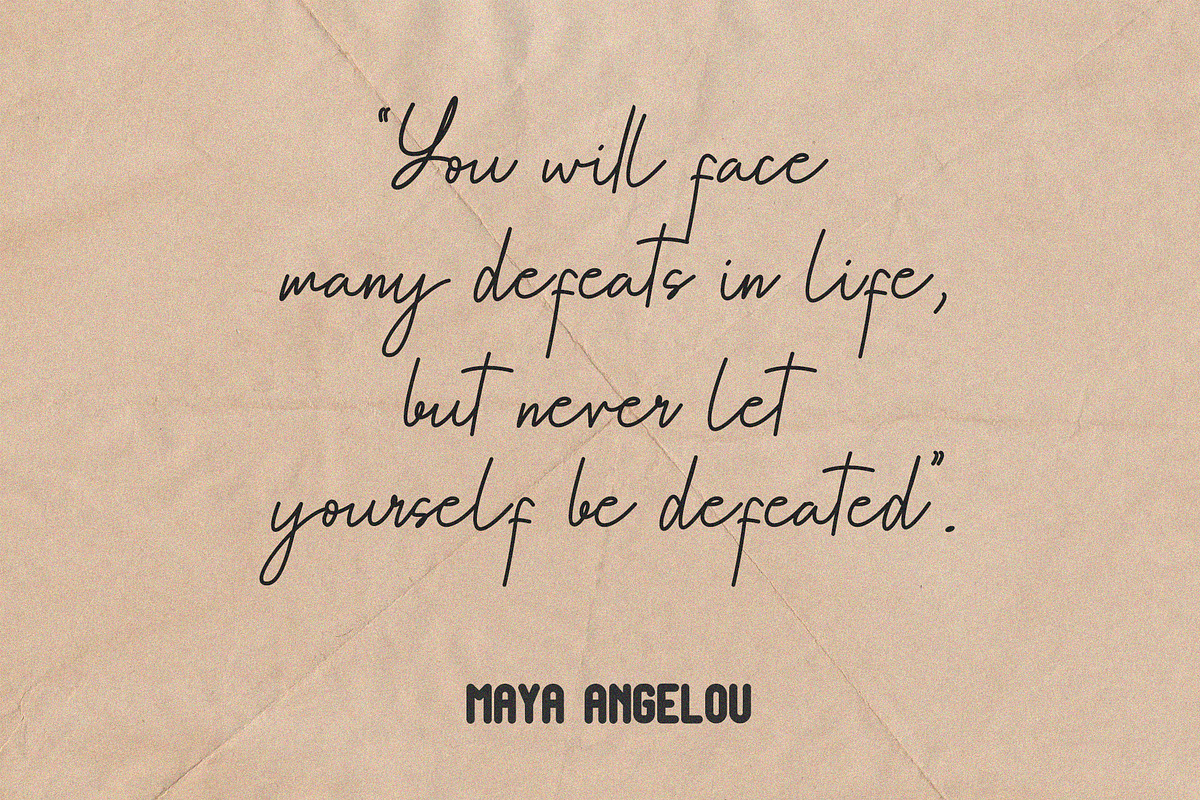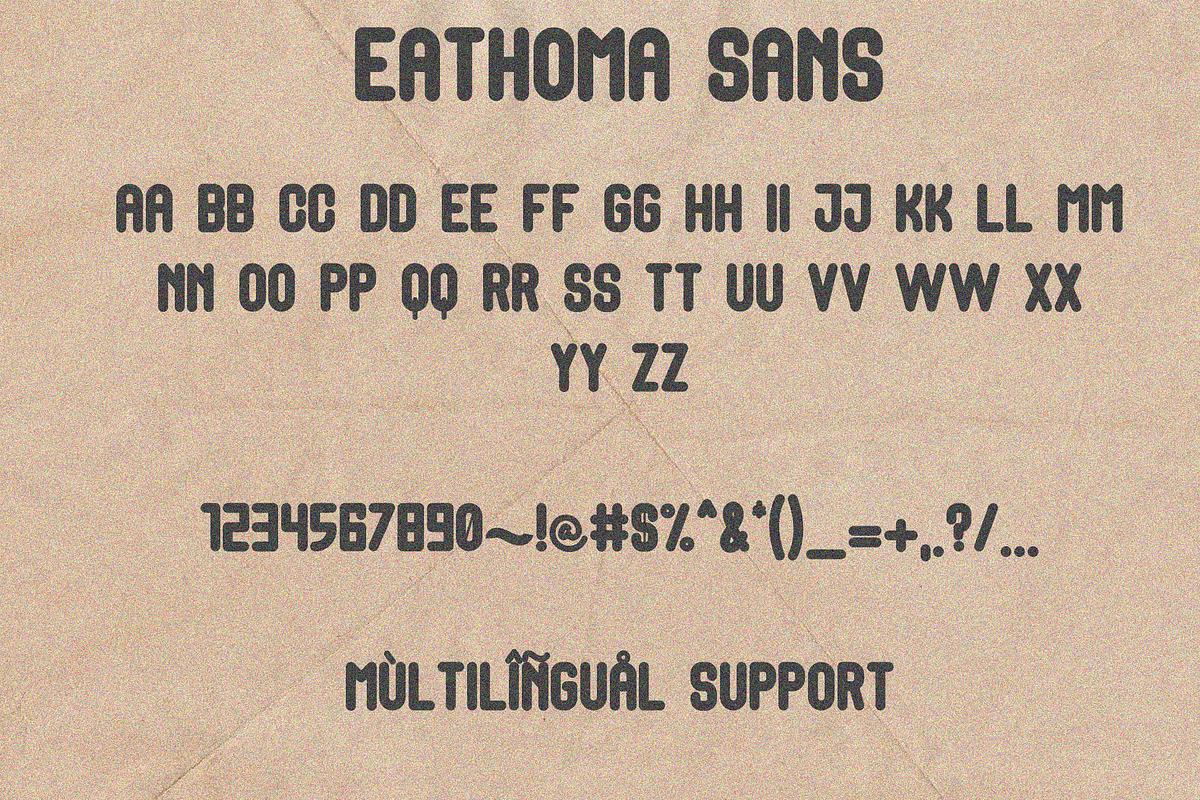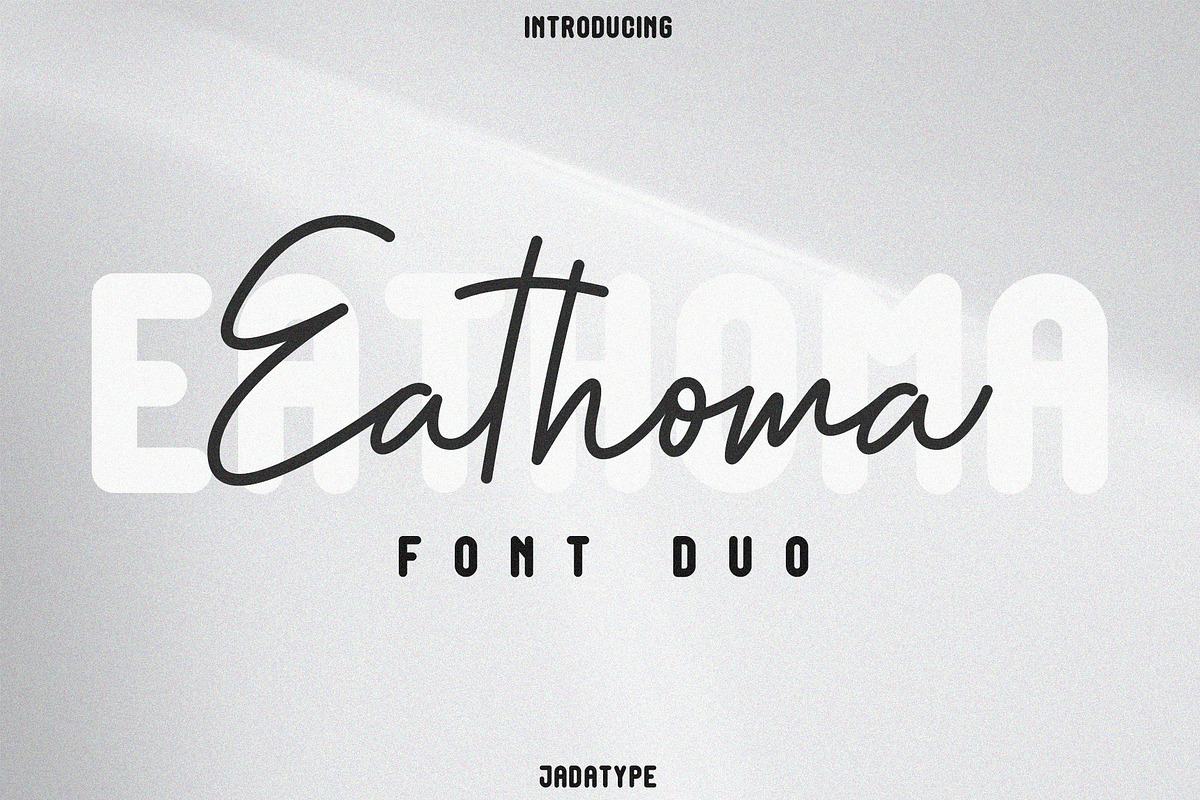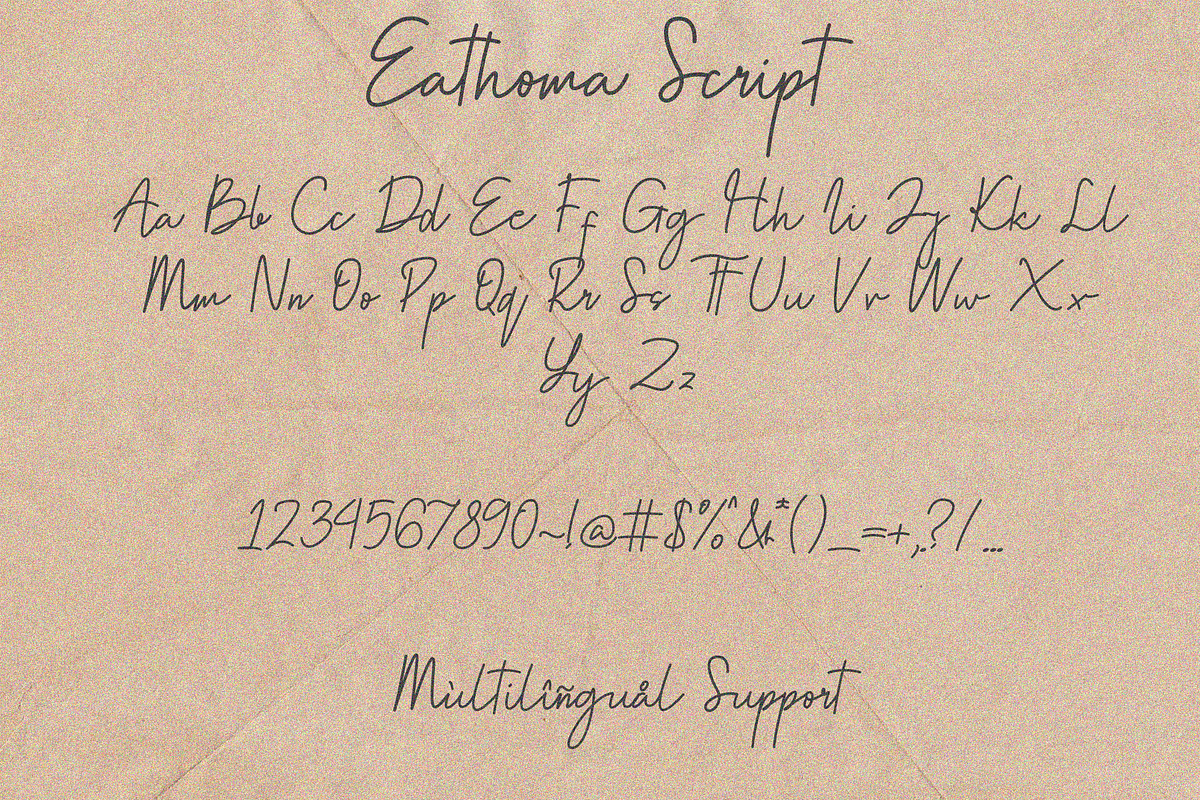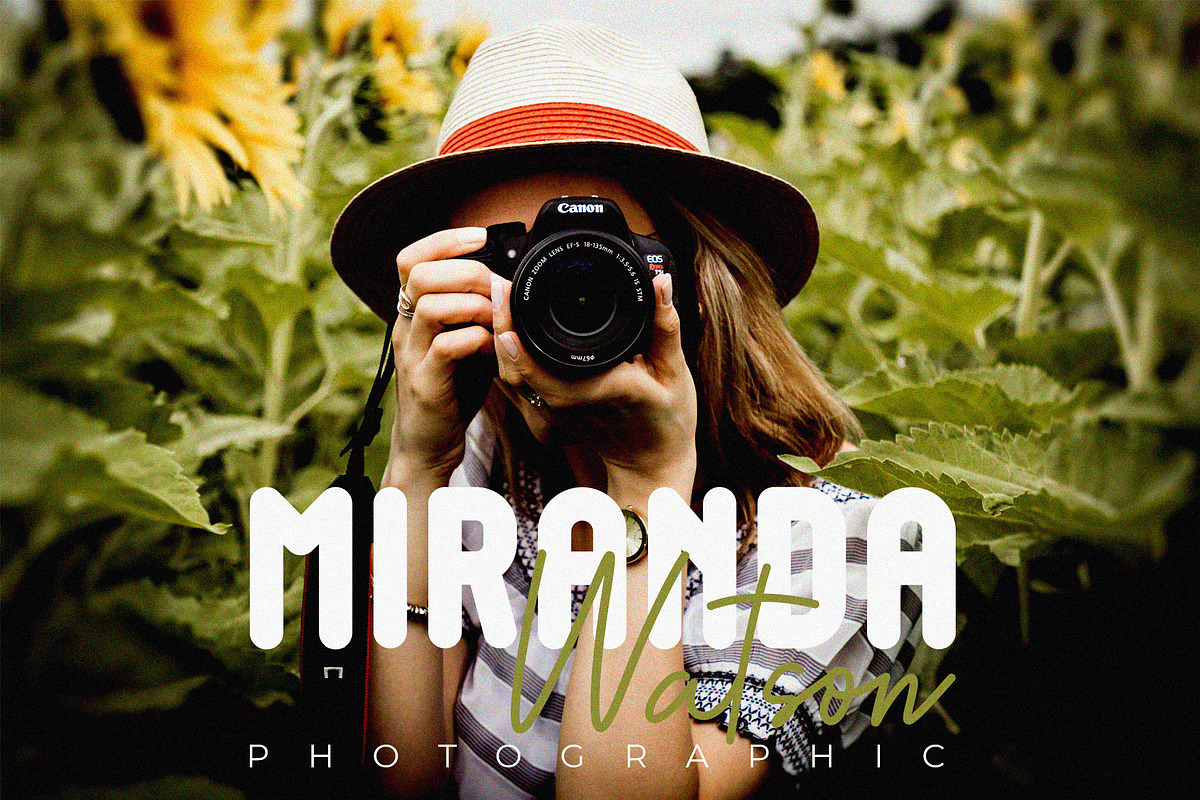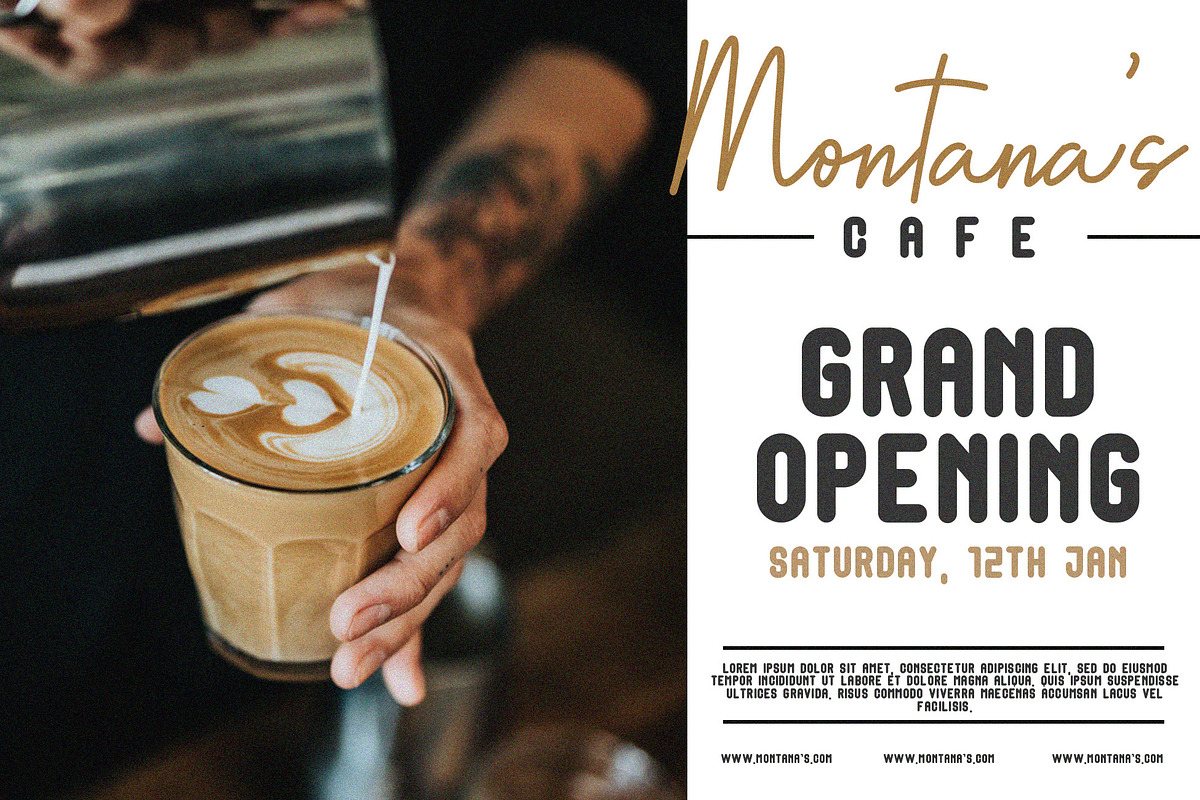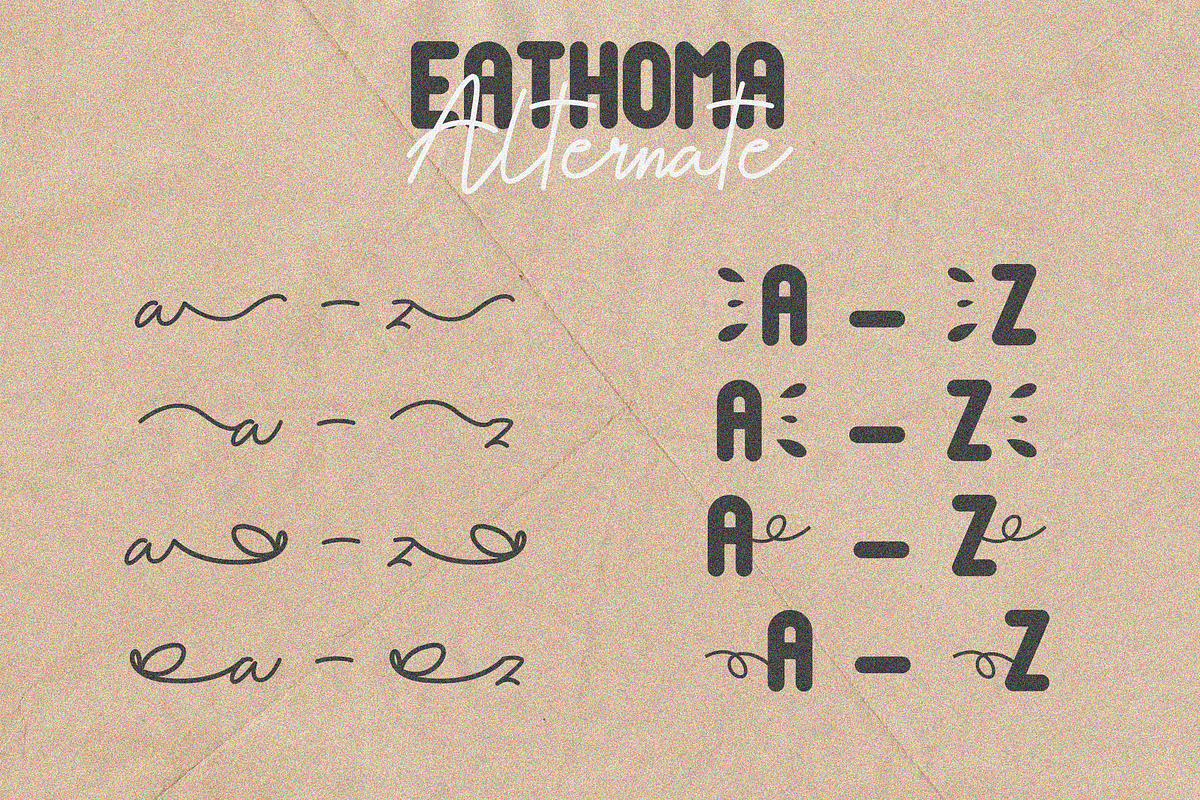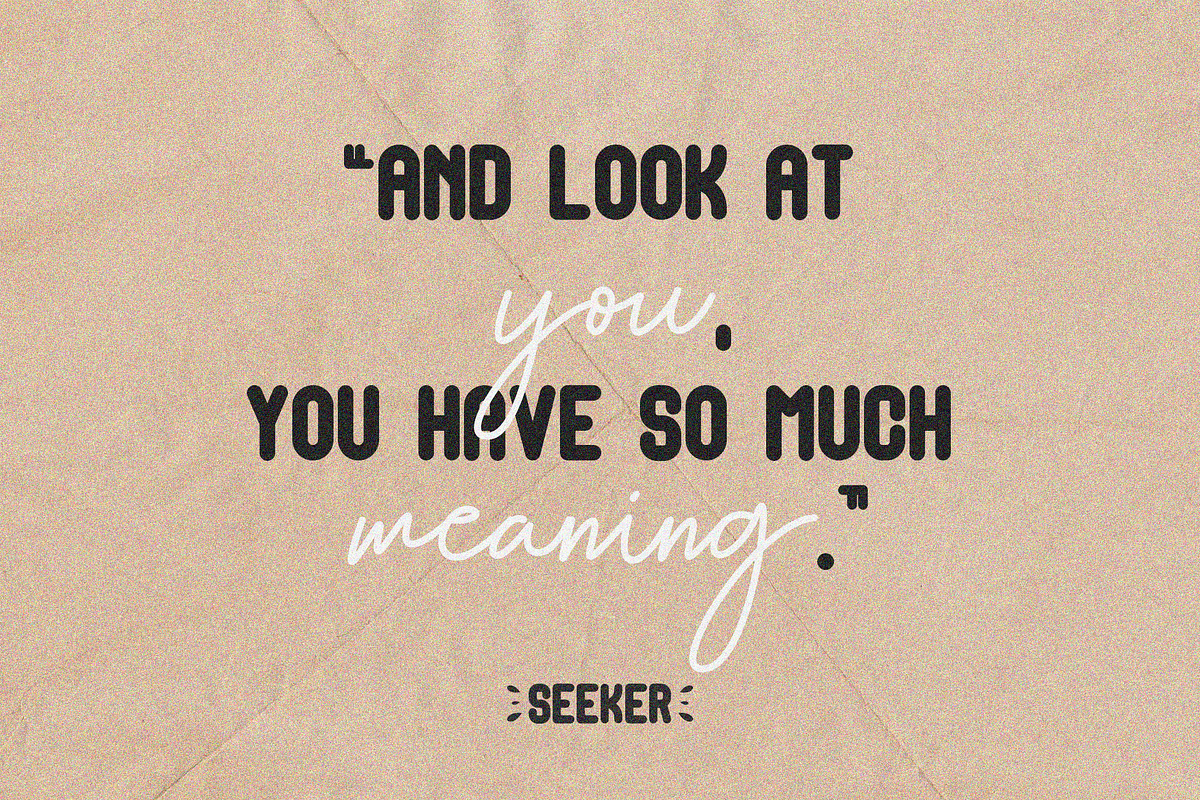
Eathoma | Font Duo
Eathoma is a font duo with a combination of script and sans serif with a cozy and modern look. Eathoma font duo is suitable for input on your branding designs, logos, greeting cards, products, crafts. and others.
- Alternates Characters